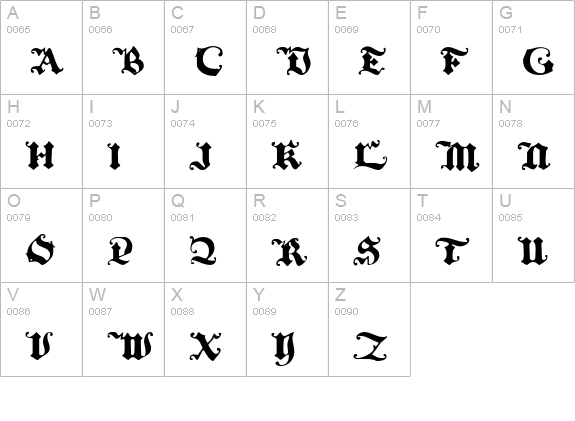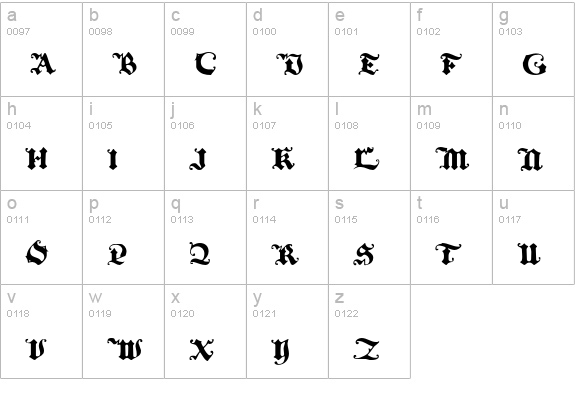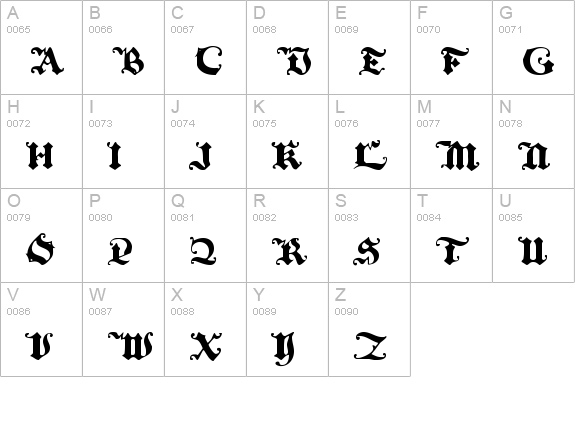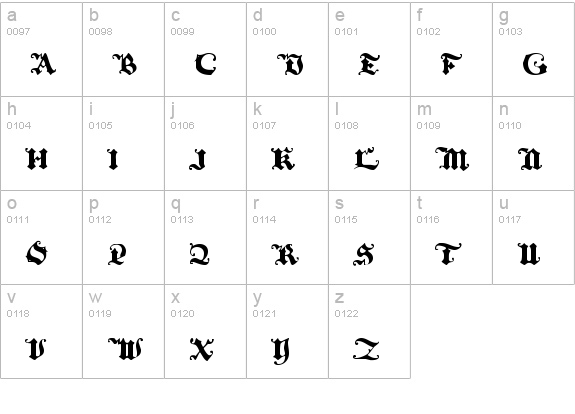
Introducing BlackInitialText font, a stunning typeface that exudes elegance and sophistication. This font is perfect for adding a touch of class to any project, whether it be invitations, logos, or branding materials. With its sleek and refined design, BlackInitialText font captures attention and leaves a lasting impression. What sets BlackInitialText font apart is not only its remarkable aesthetics, but also its accessibility. This font is available for free, allowing designers and enthusiasts alike to effortlessly incorporate it into their creative endeavors. Its versatility makes it suitable for a wide range of applications, from professional designs to personal projects. BlackInitialText font can be easily downloaded at FontsMarket.com, a renowned platform for high-quality fonts. By offering this font for free, FontsMarket.com aims to encourage creativity and provide designers with the tools they need to bring their visions to life. With just a few clicks, you can have BlackInitialText font at your disposal, ready to elevate your designs to new heights. Whether you're a seasoned designer or a passionate hobbyist, BlackInitialText font is a must-have in your font collection. Its timeless appeal and accessibility make it a valuable asset for any creative project. So why wait? Discover the beauty and versatility of BlackInitialText font today, and unlock a world of design possibilities.